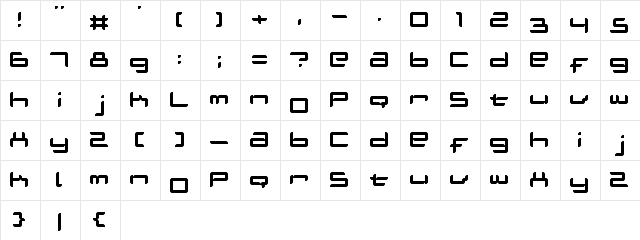
Ablattive Regular
Foundry: TracerTong
Design Context for Ablattive
Ablattive is a composed and adaptable typeface that performs quietly and consistently across a wide range of design contexts.